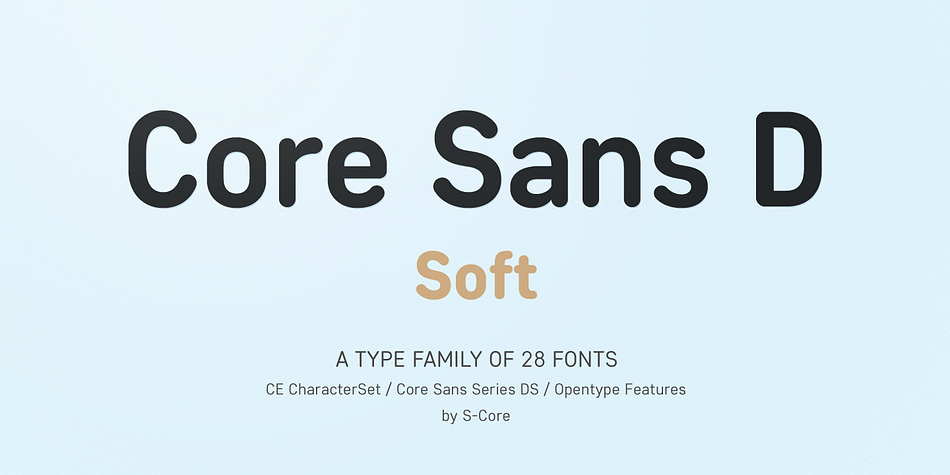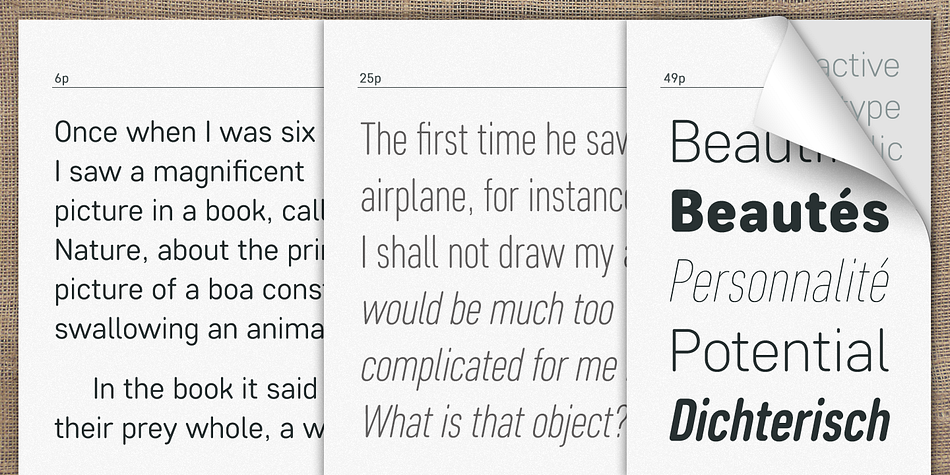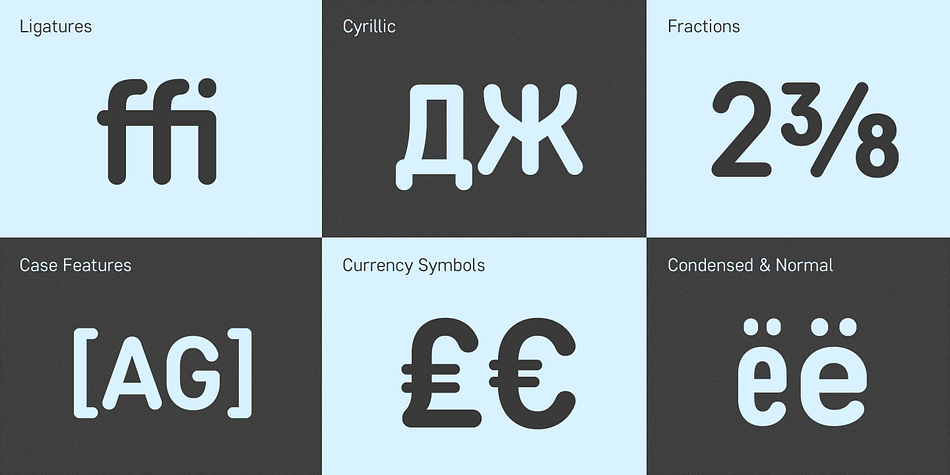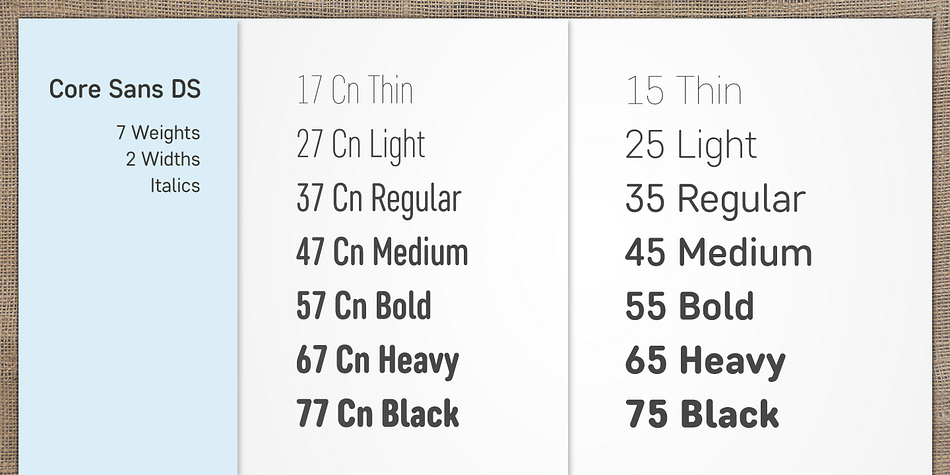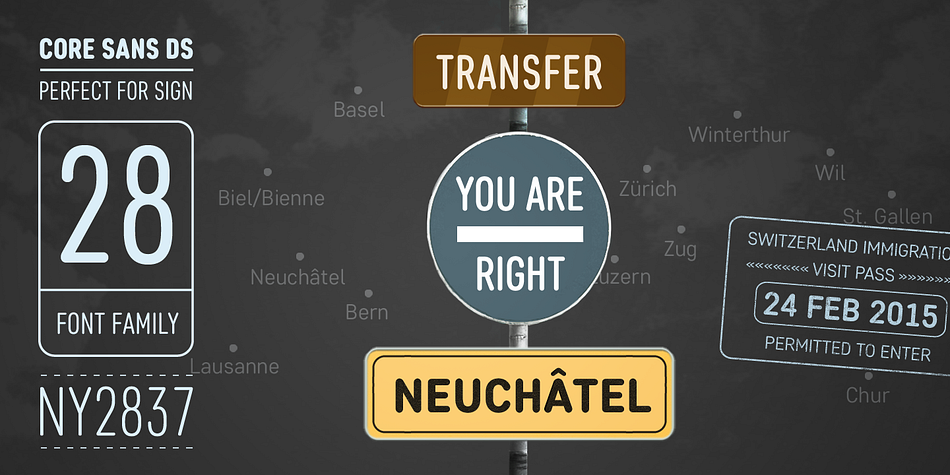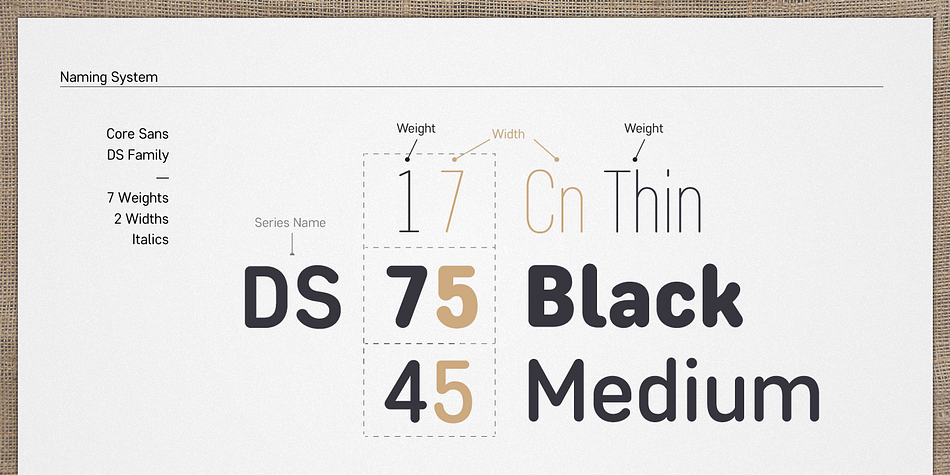
Core Sans DS is a sans serif font family. This typeface has twenty-eight styles and was published by S-Core.
Core Sans DS is a rounded version of Core Sans D and a modern interpretation of condensed sans-serif typeface designed by S-Core and the whole family consists of 2 widths (Condensed, Normal), 7 weights (Thin, Light, Regular, Medium, Bold, Heavy, Black) with their corresponding italics.
Core Sans DS features a condensed geometric construction and has a large x-height which enhances legibility. The family is ideal for signage, headline as well as body text.
Core Sans DS is a part of the Core Sans Series such as Core Sans N SC, Core Sans N, Core Sans NR, Core Sans M, Core Sans G and Core Sans A.
Letterform in this type family is simple, clean and highly readable. The spaces between individual letter forms are precisely adjusted to create the perfect typesetting.
Core Sans DS supports complete Basic Latin, Cyrillic, Central European, Turkish, Baltic character sets. Each font includes proportional figures, tabular figures, numerators, denominators, superscript, scientific inferiors, subscript, fractions and case features.